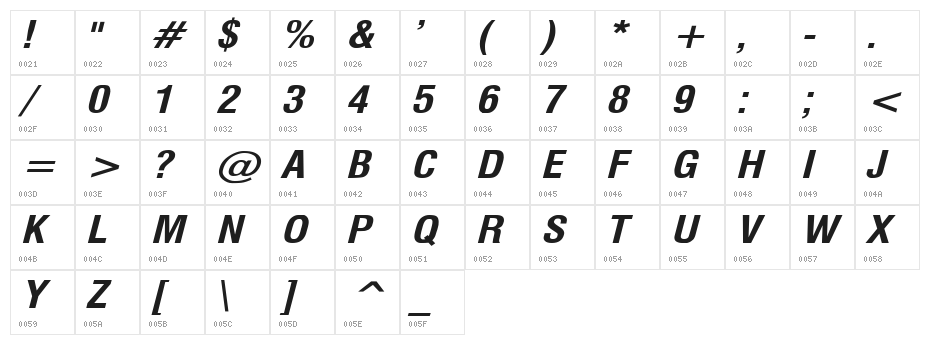
Milford Bold Italic Font
Milford Bold Italic Description
This typeface features a bold and italicized style, combining strength with a dynamic slant. The characters are robust and slightly condensed, offering a modern and assertive appearance. The strokes are consistent, providing a medium contrast that enhances readability while maintaining a strong visual impact. The italic angle adds a sense of motion and energy, making it suitable for attention-grabbing headlines. The numerals and special characters are designed to match the boldness and slant of the letters, ensuring uniformity across all text elements.
| Proposed Projects | Ideal for branding, advertising, and editorial design where a strong, modern presence is desired. |